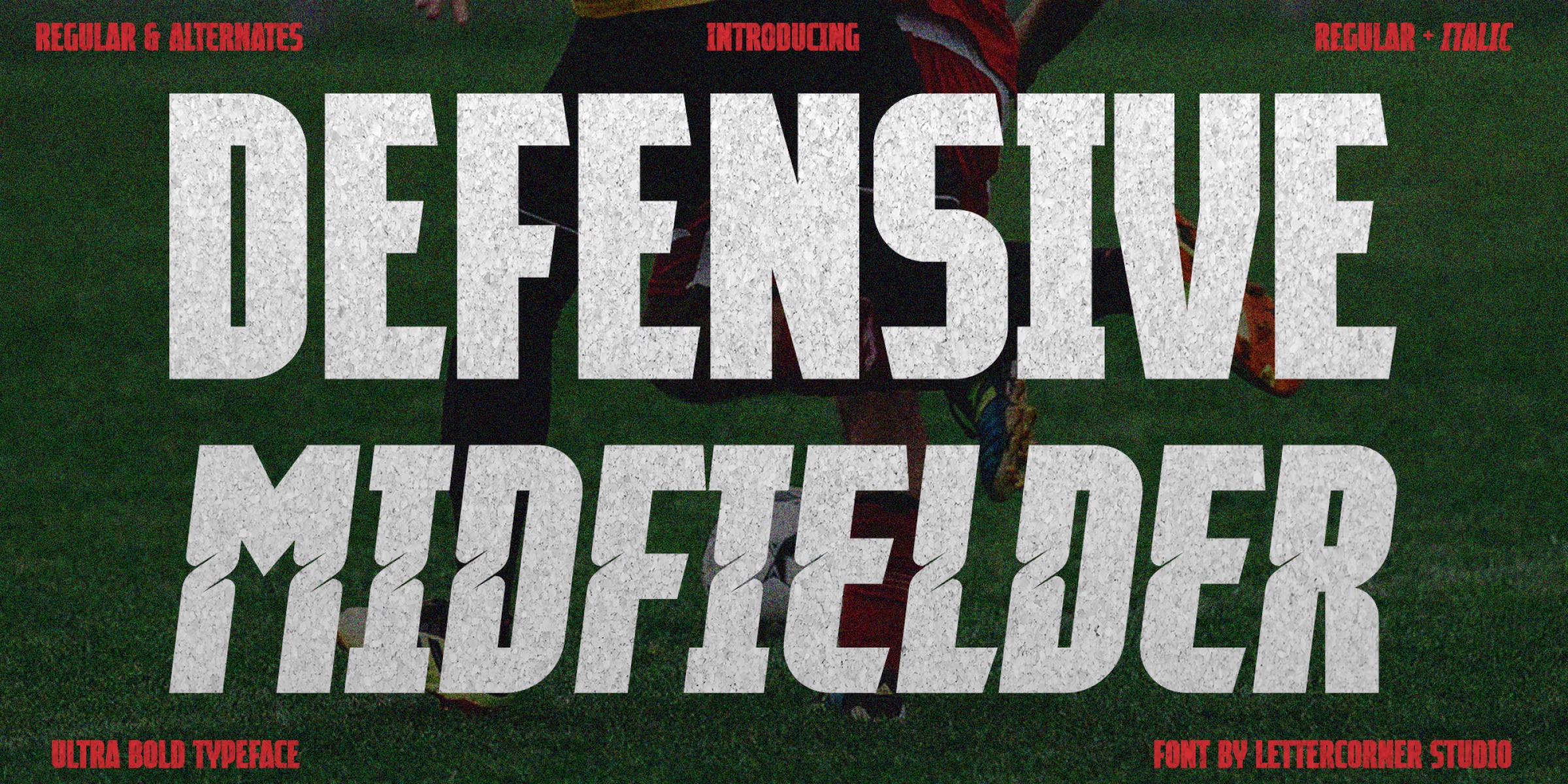
Defensive Midfielder – Bold Sans Serif Font
Defensive Midfielder – Bold Sans Serif Font is a clean and thoughtfully built typeface that works seamlessly for both professional branding and everyday creative uses. Defensive Midfielder Font is a bold and modern sports display typeface designed to capture the intensity, strength, and excitement of competitive athletics. Inspired by football culture, this eye-catching font features strong geometric shapes and powerful letterforms, making it an ideal choice for sports branding, team logos, jersey lettering, esports graphics, tournament posters, and athletic merchandise.
Whether you’re creating promotional materials for sporting events or designing professional branding projects, Defensive Midfielder Font delivers exceptional visual impact while maintaining excellent readability. Its bold style allows headlines, titles, and logos to stand out across both digital and print media.
The typeface includes two unique font styles, providing greater flexibility for designers looking to create distinctive sports-themed graphics. From social media banners and YouTube thumbnails to apparel, packaging, and advertising campaigns, Defensive Midfielder Font adds a modern and energetic feel to every design.
Key Features
Bold sports display font
Two unique font styles
Perfect for football and esports branding
Great for logos, posters, headlines, jerseys, and merchandise
Clean, modern, and highly readable letterforms
Suitable for both print and digital projects
If you’re searching for a professional sports font with a bold personality, Defensive Midfielder Font is an excellent choice. Its powerful appearance and versatile design make it a valuable addition to any designer’s font collection, especially for projects that require strength, motion, and competitive energy.